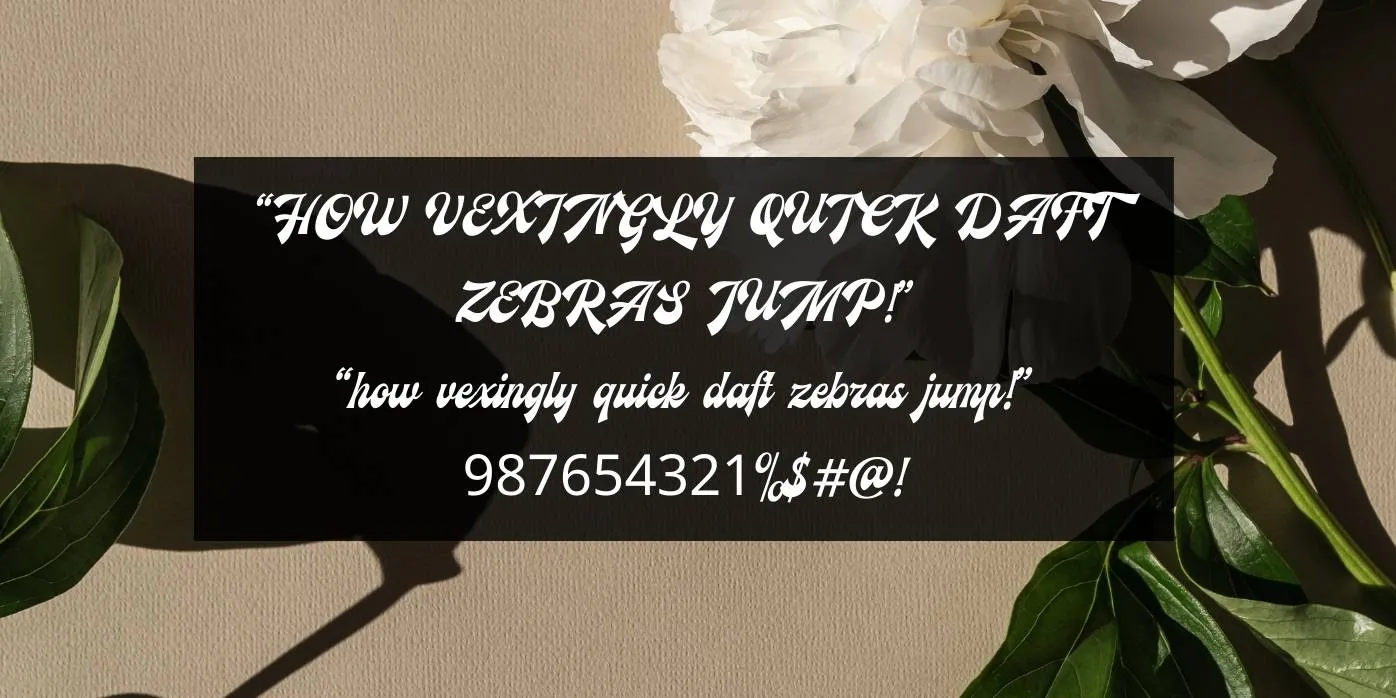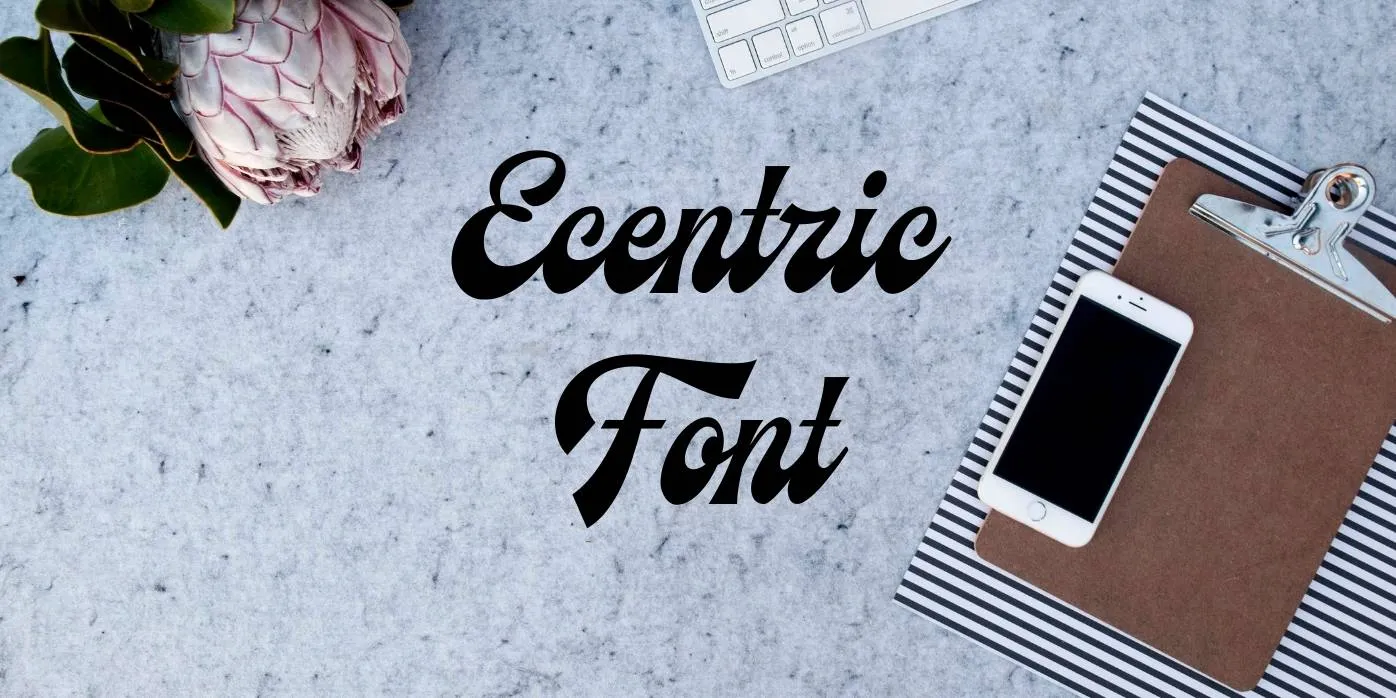
Ecentric Font
Ecentric Font belongs to the script font family. This typeface was developed by Monotype Corporation. This typeface was released in 1993. This script font has a unique and modern look.
The letters are quite wide, which makes the font very readable. Ecentric Font is perfect for headlines, titles, and short paragraphs of text. It includes almost three styles Regular, Bold, and Italic. You can use this font for both digital and print projects.